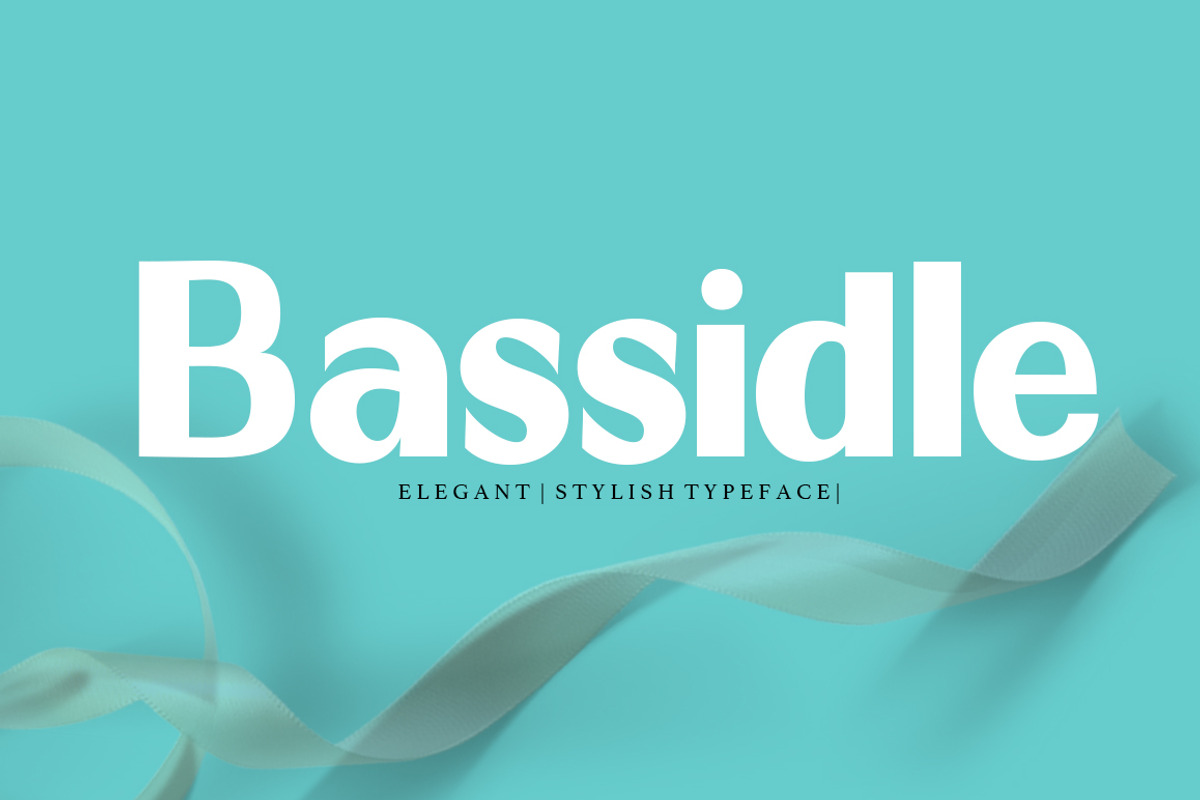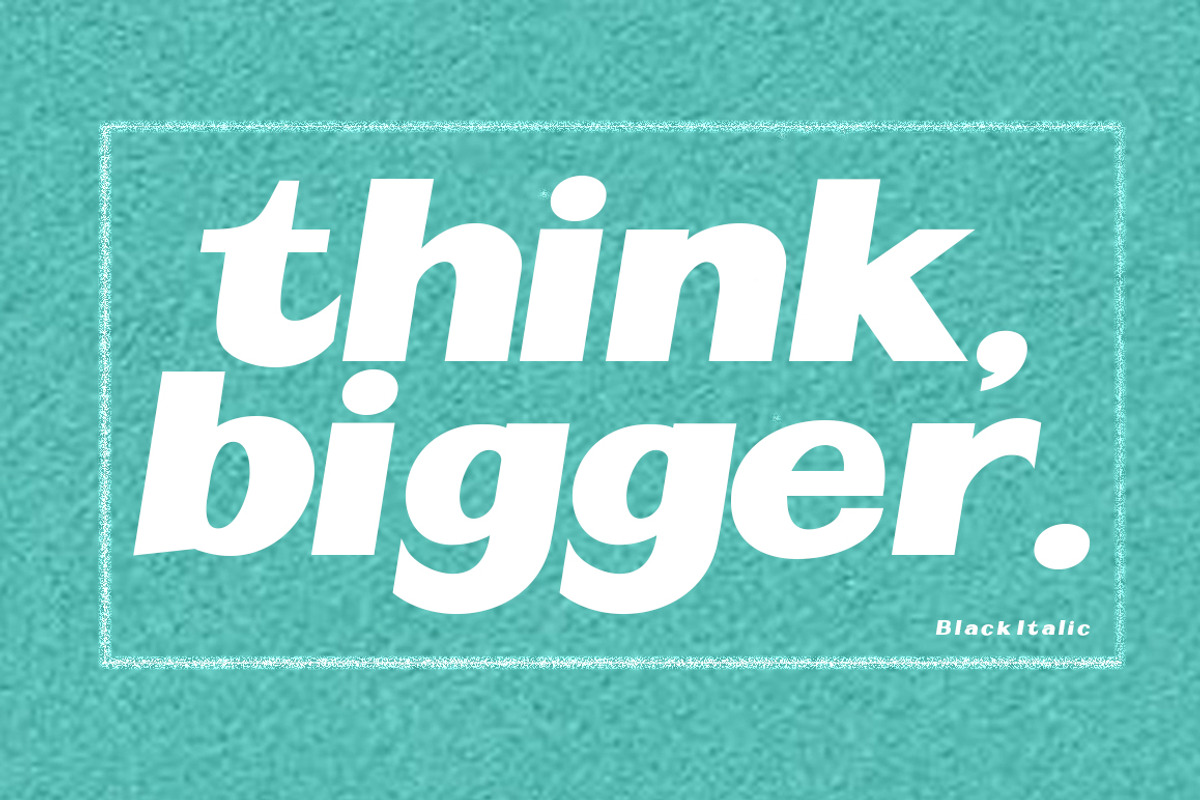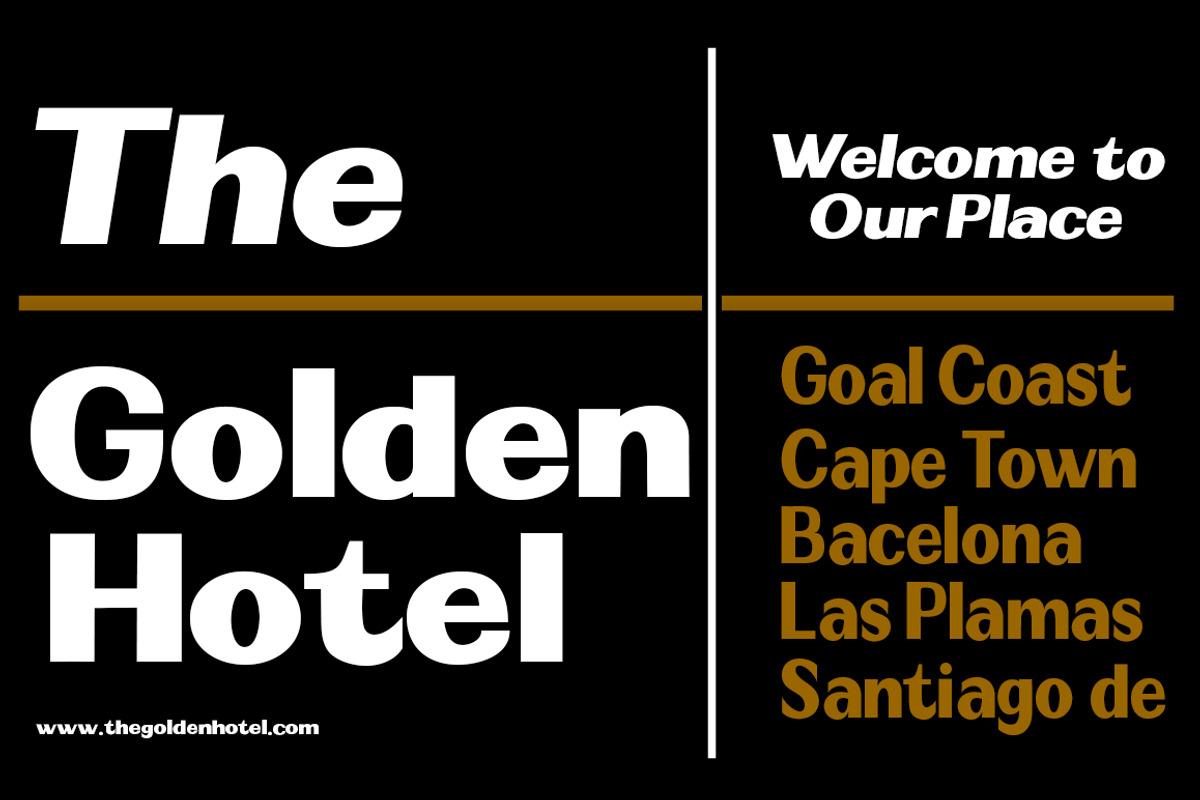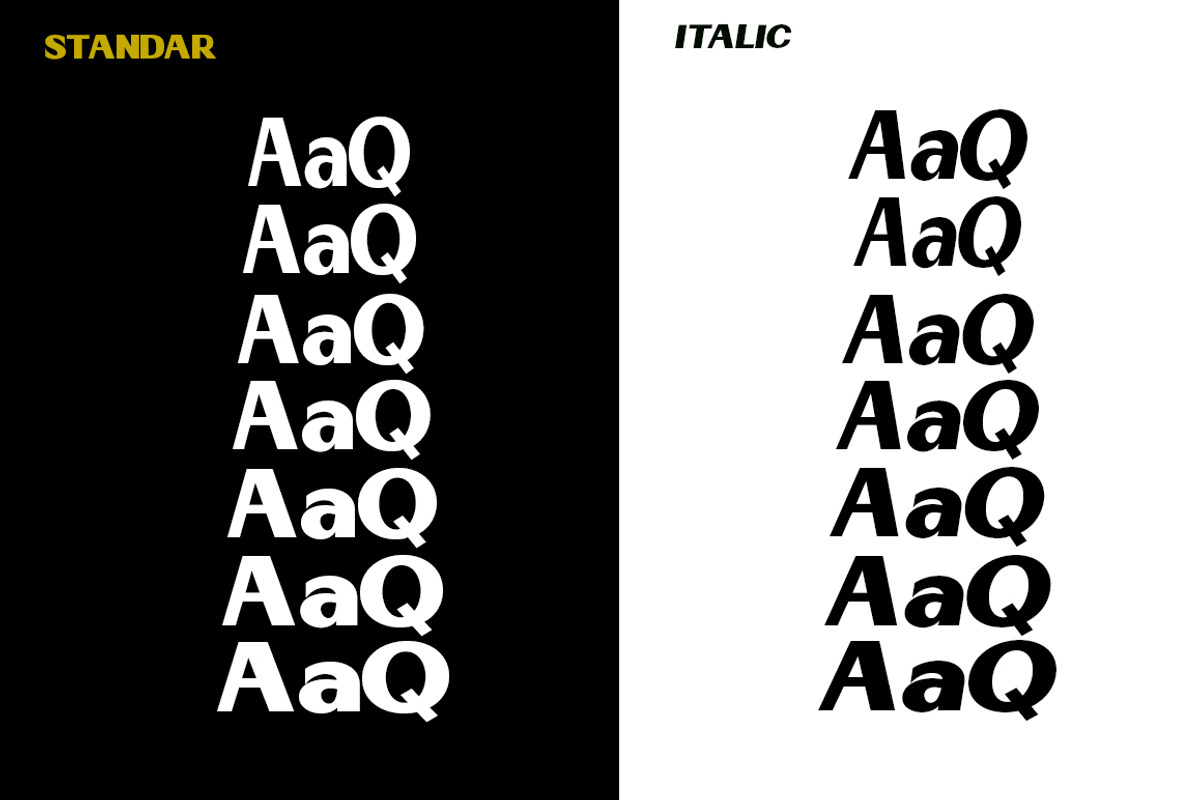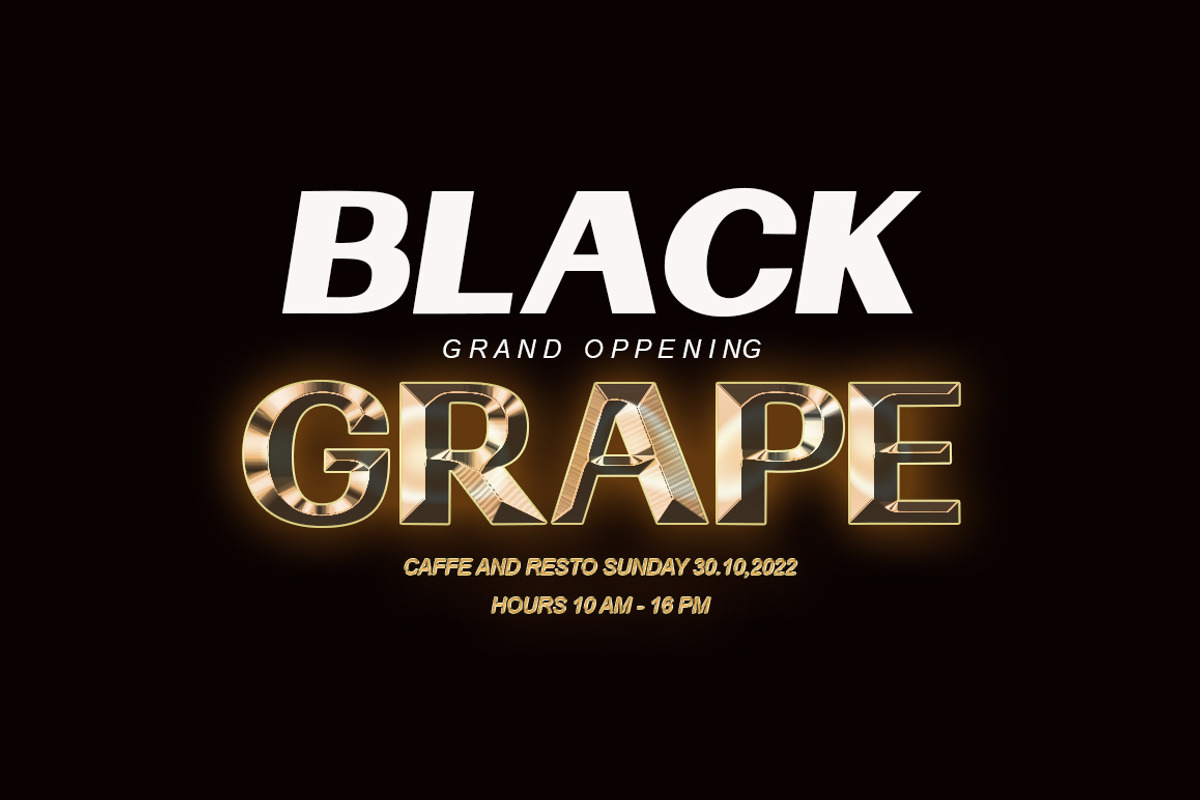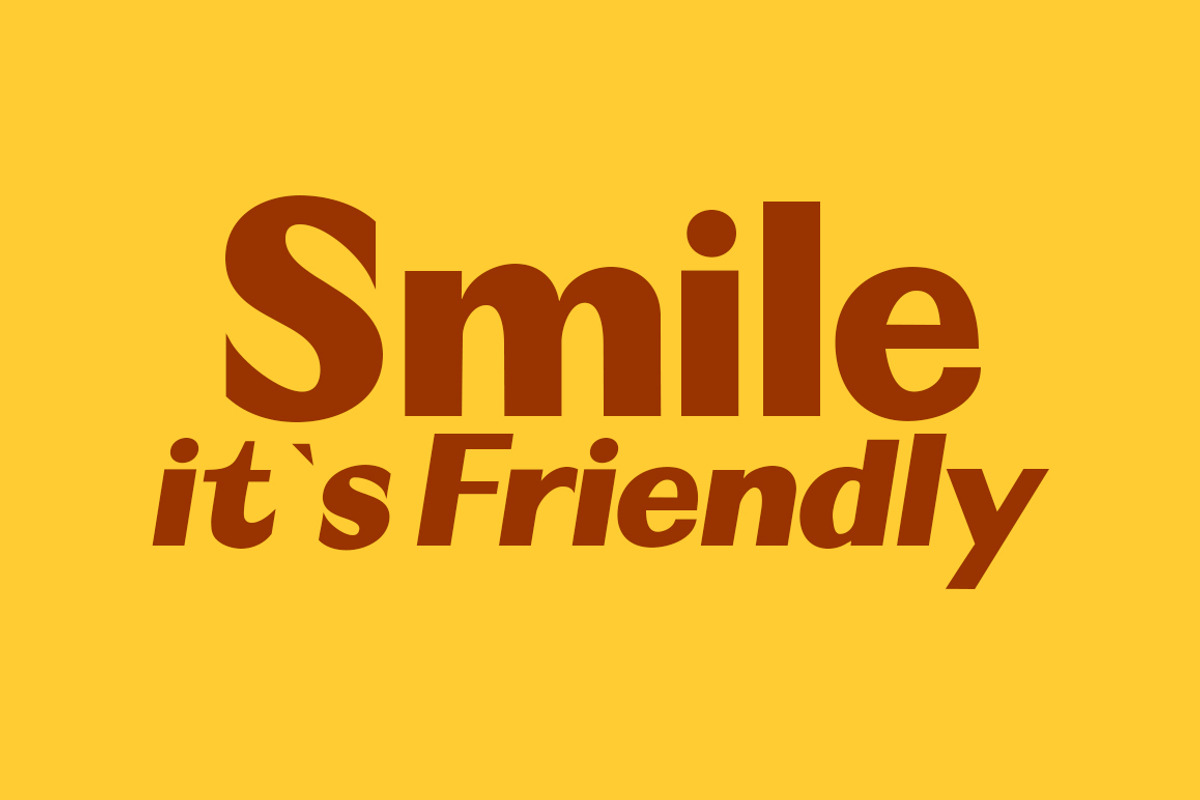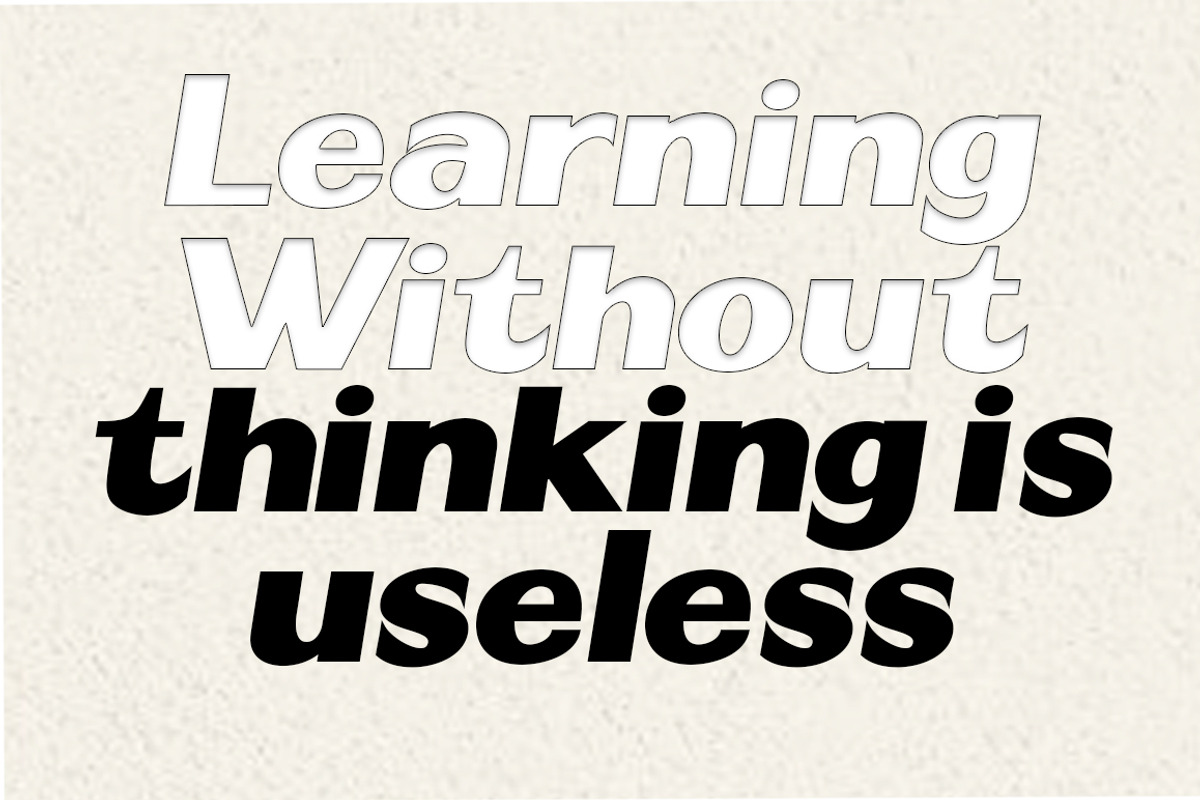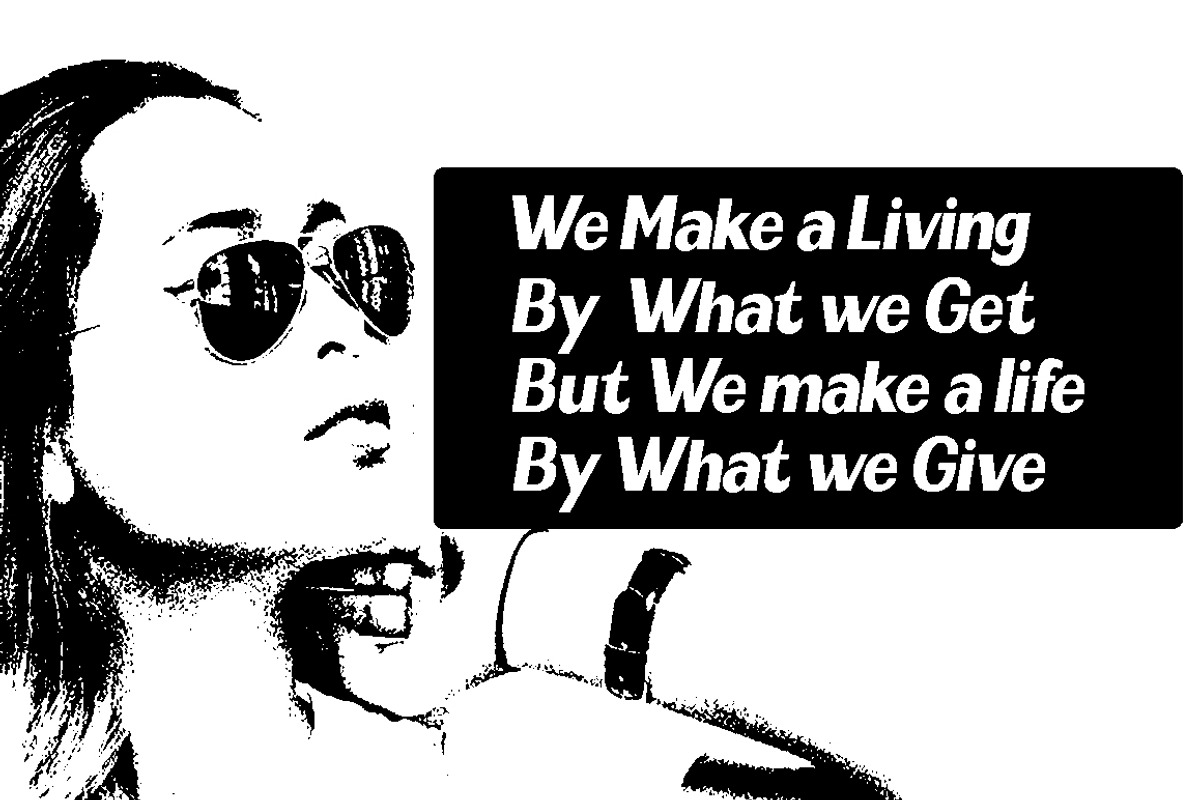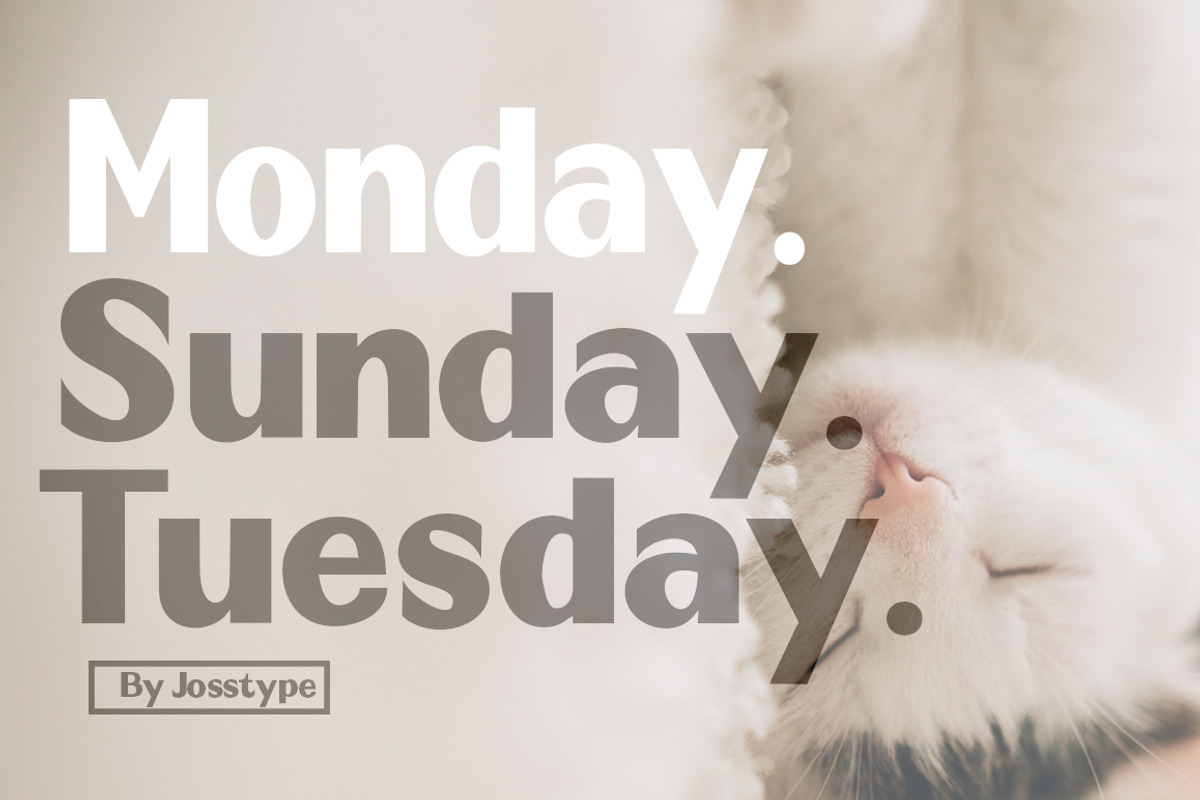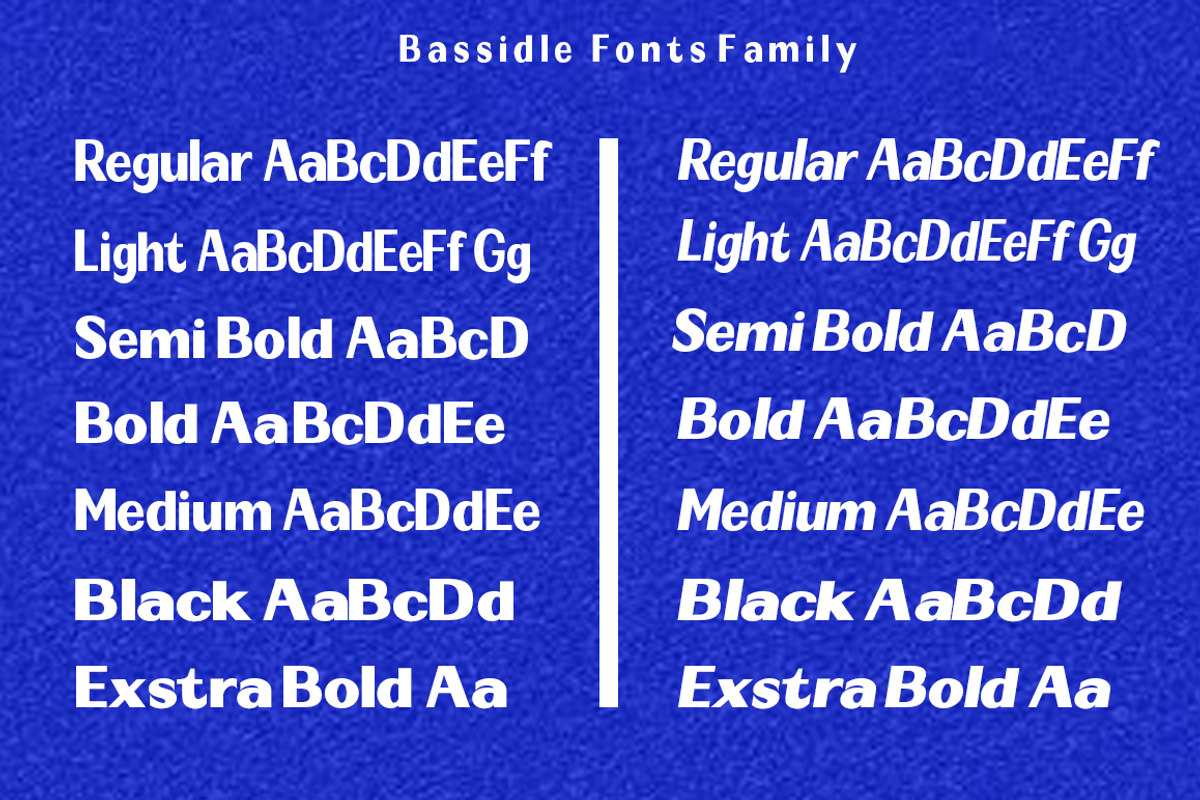
Bassidle
Bassidle Font is a sans serif font family that is simple but strong, defined by sharp edges with a modern touch. It is designed to exude a sense of strength and toughness as well as optimal readability. t’s a perfect choice for branding, magazines, posters, advertising, packaging, headlines, logos, web, print etc.
14 styles: 7 uprights and matching italics. 222 glyphs. Latin based languages. OpenType features, including ligatures. OTF, TTF files. Variable Font Includes.